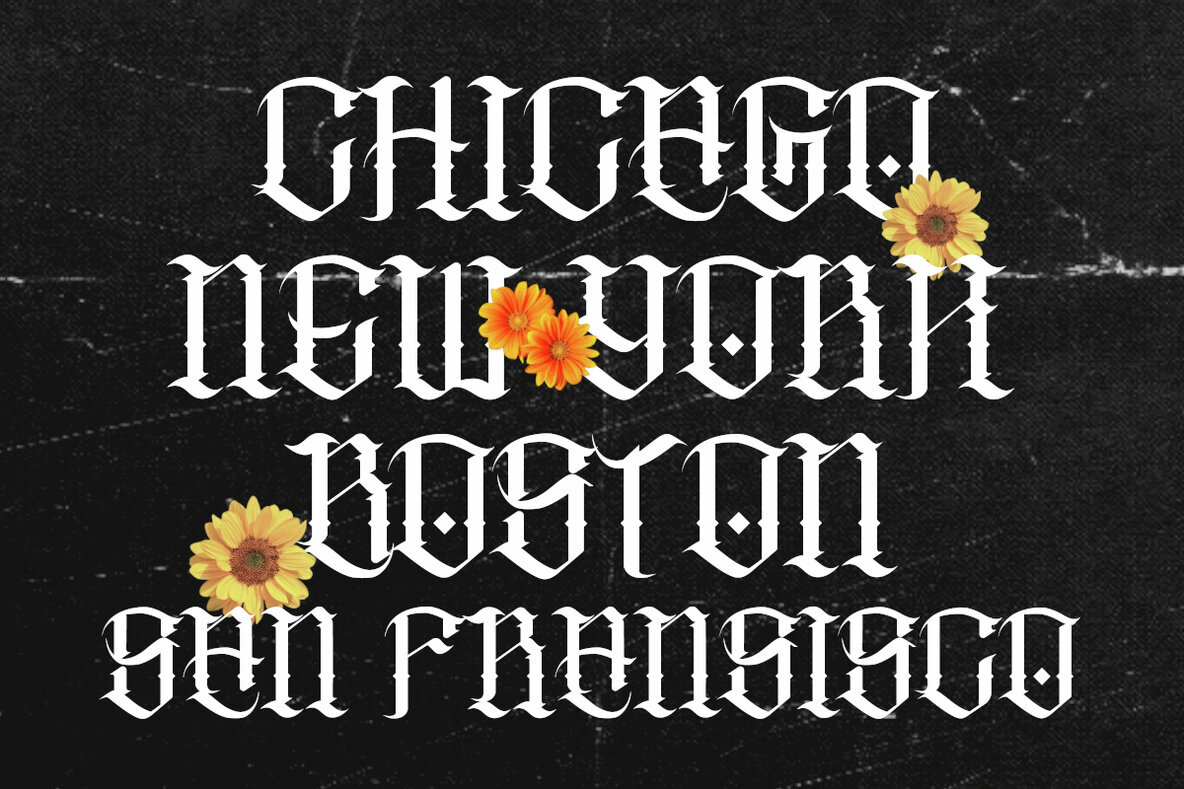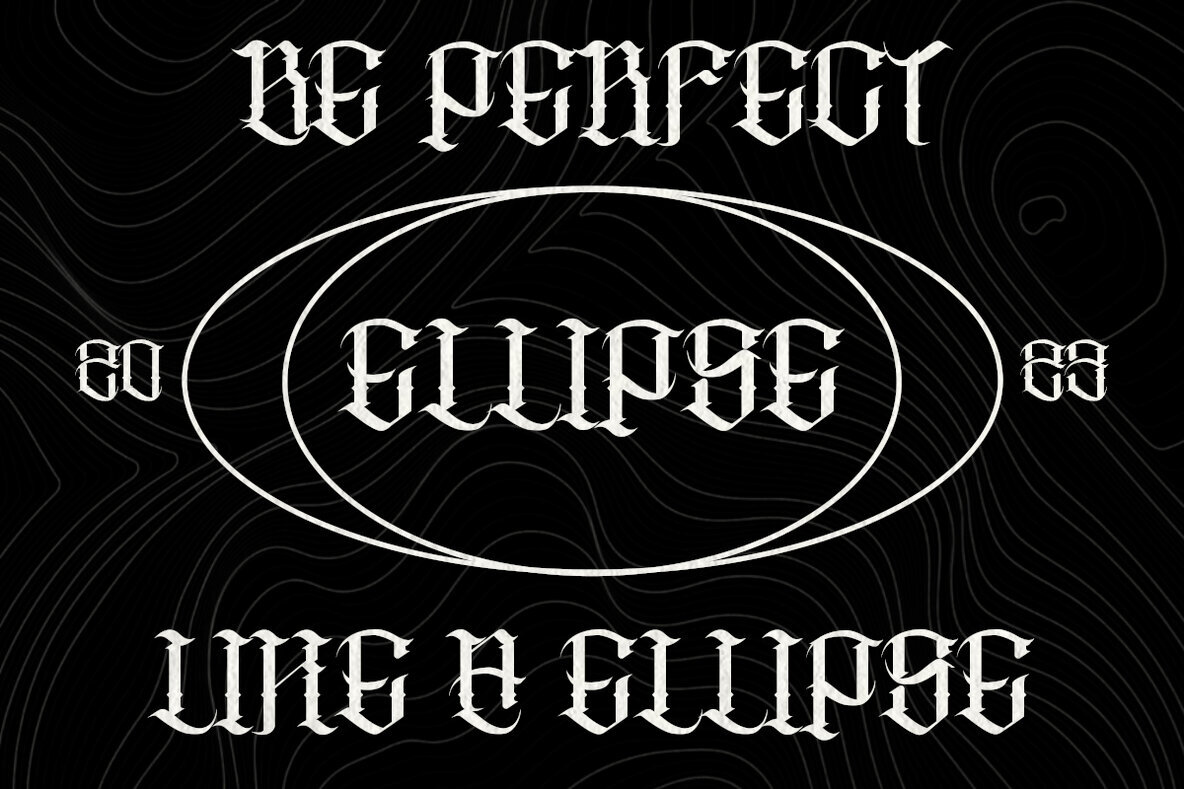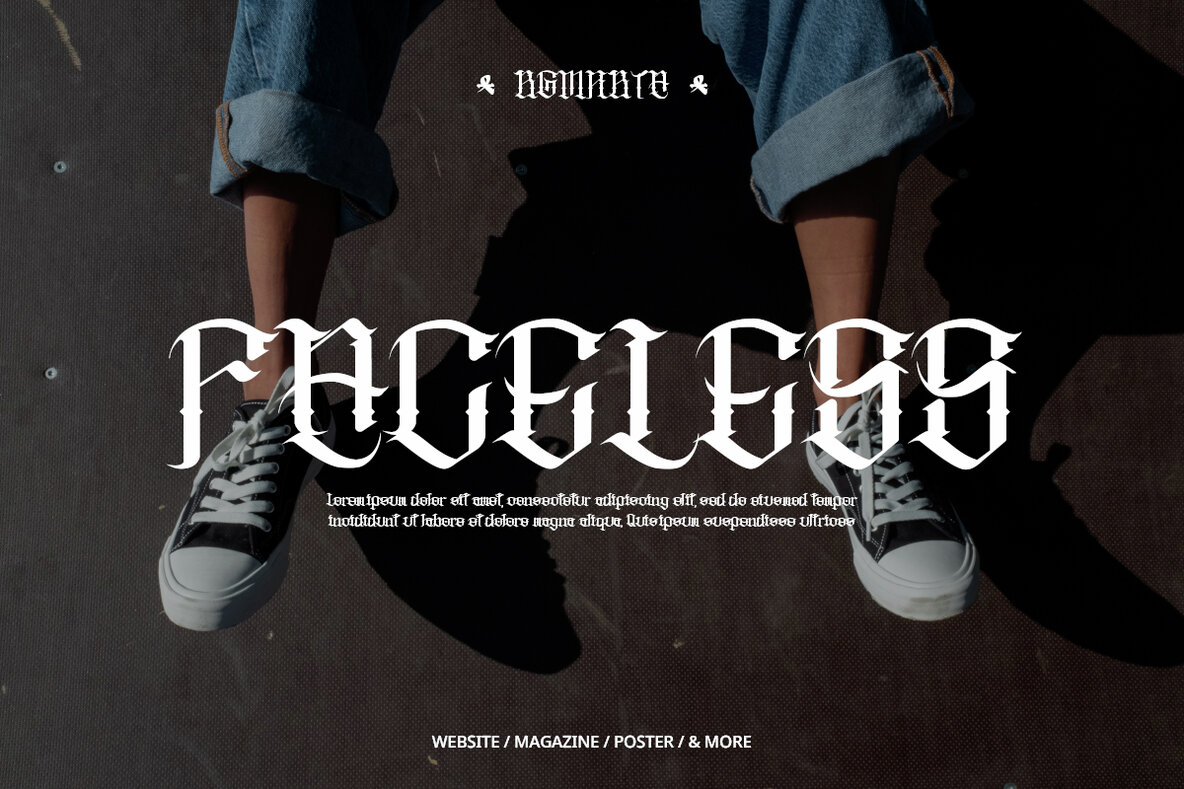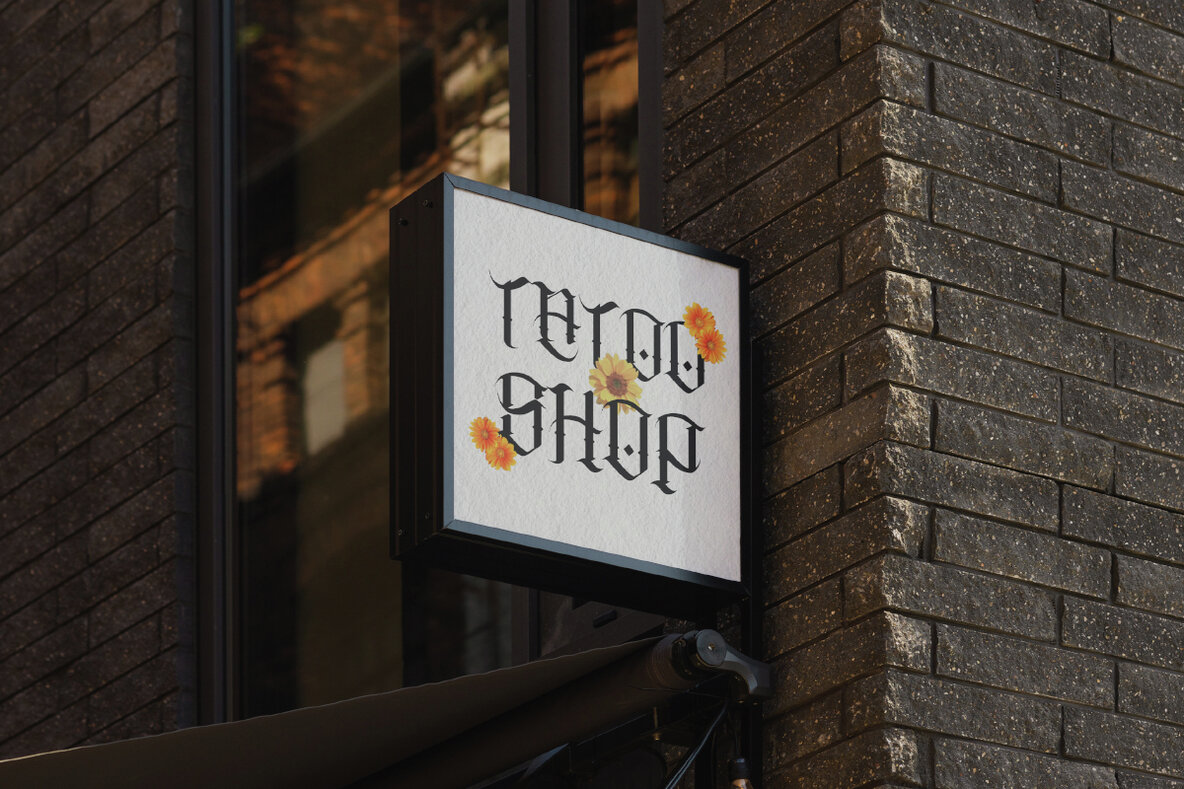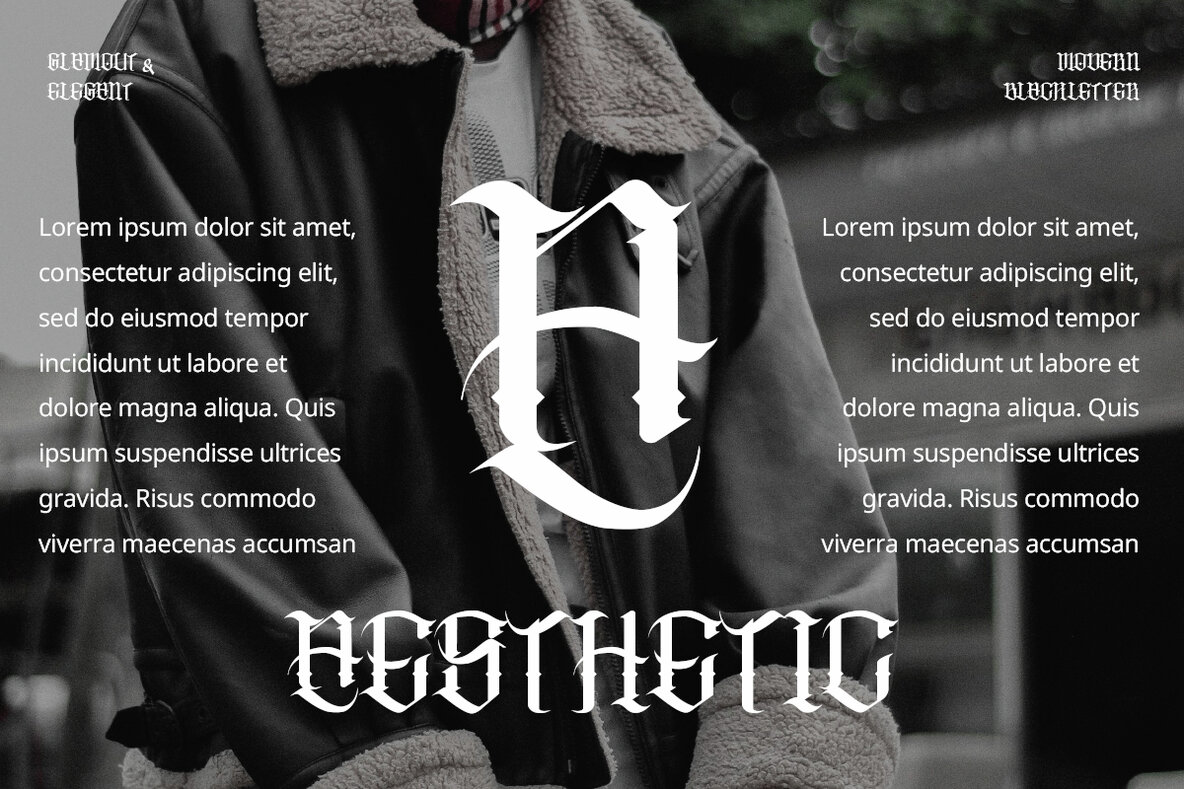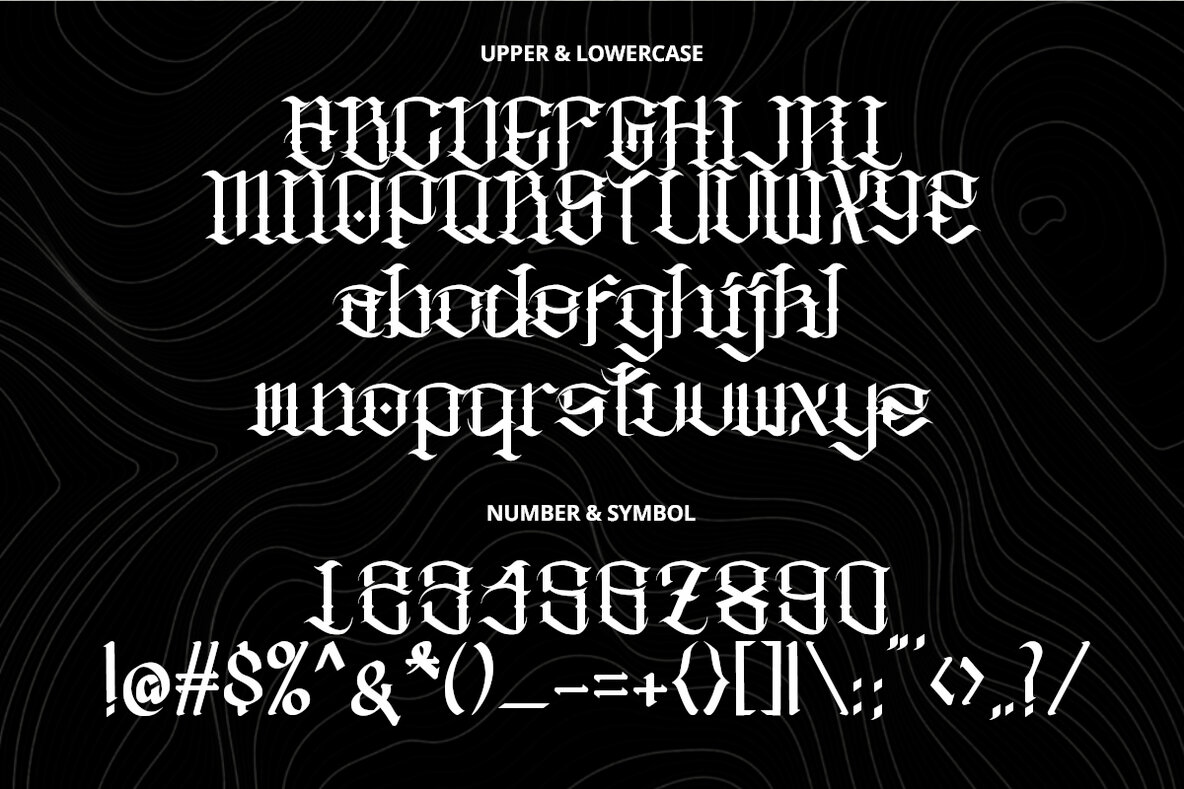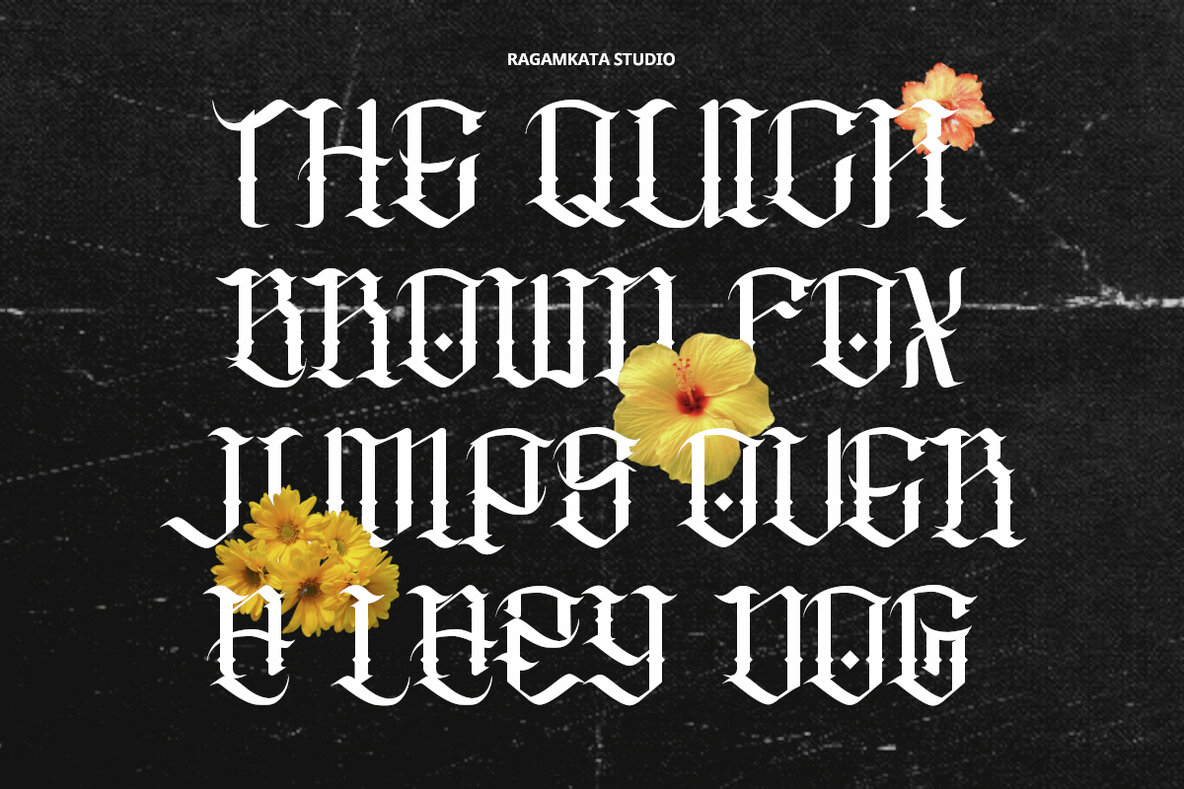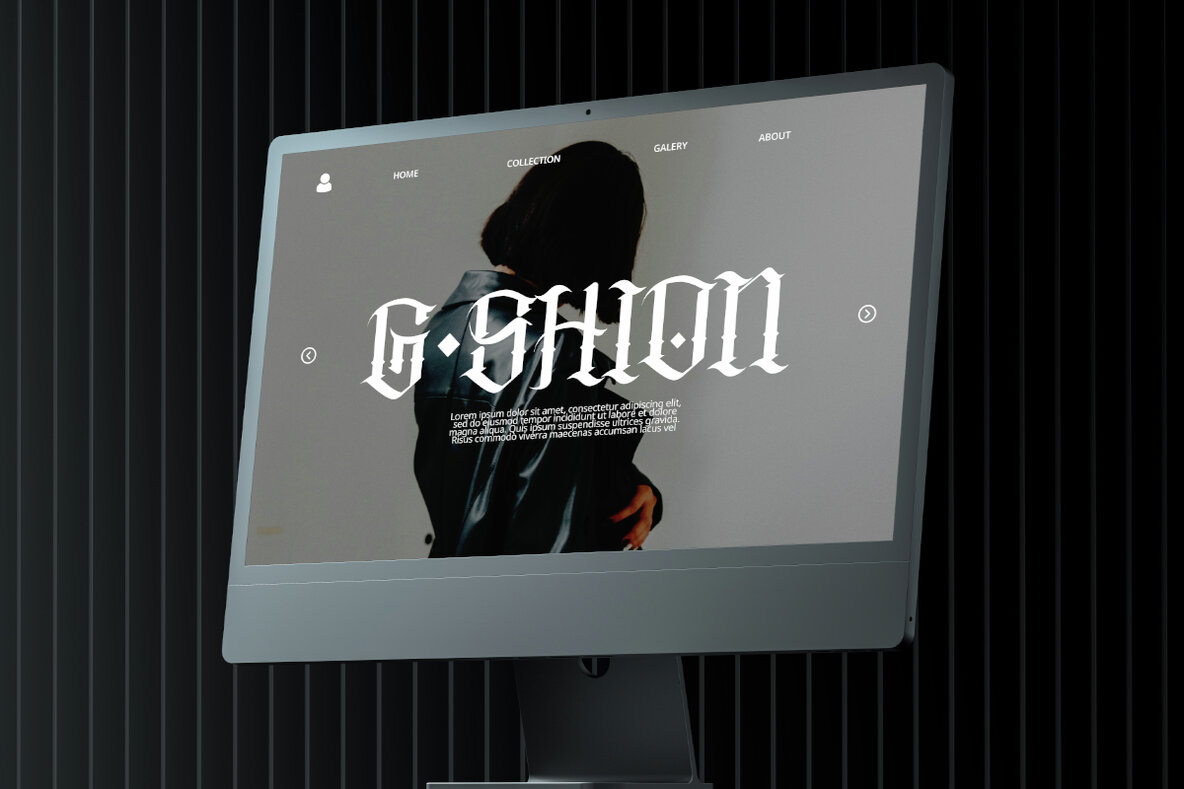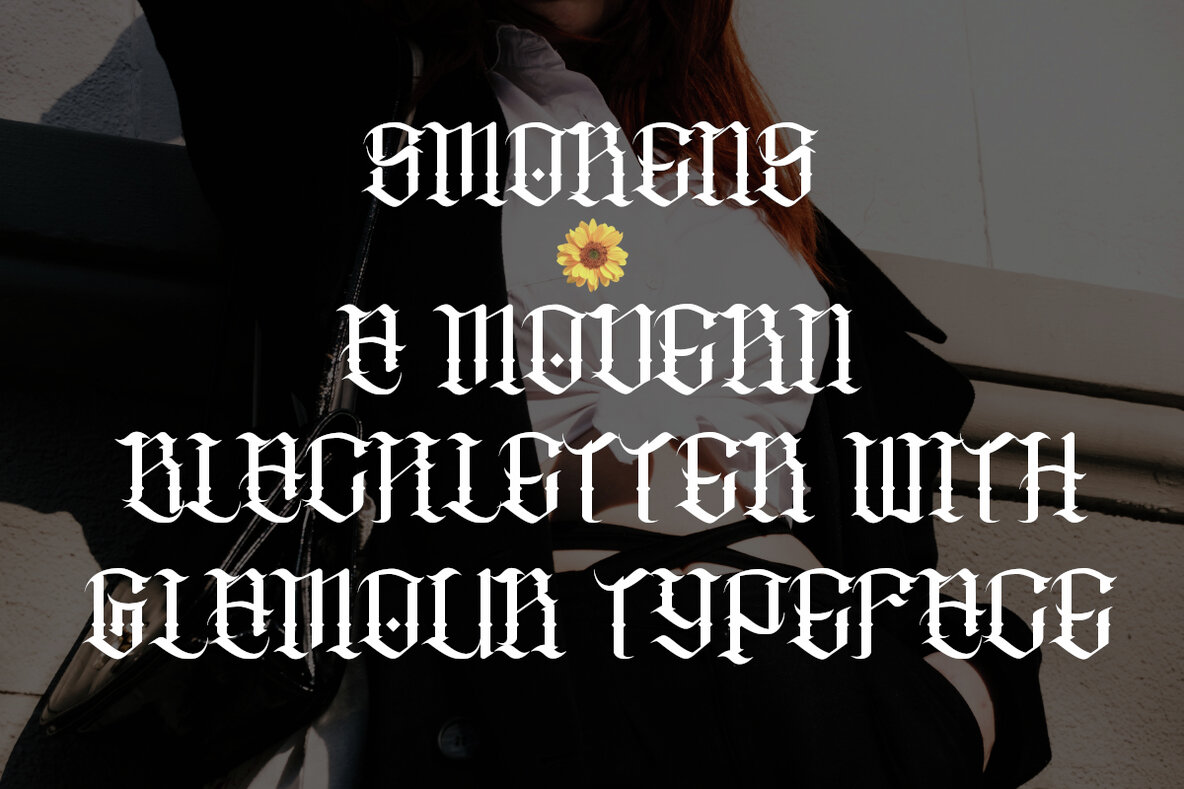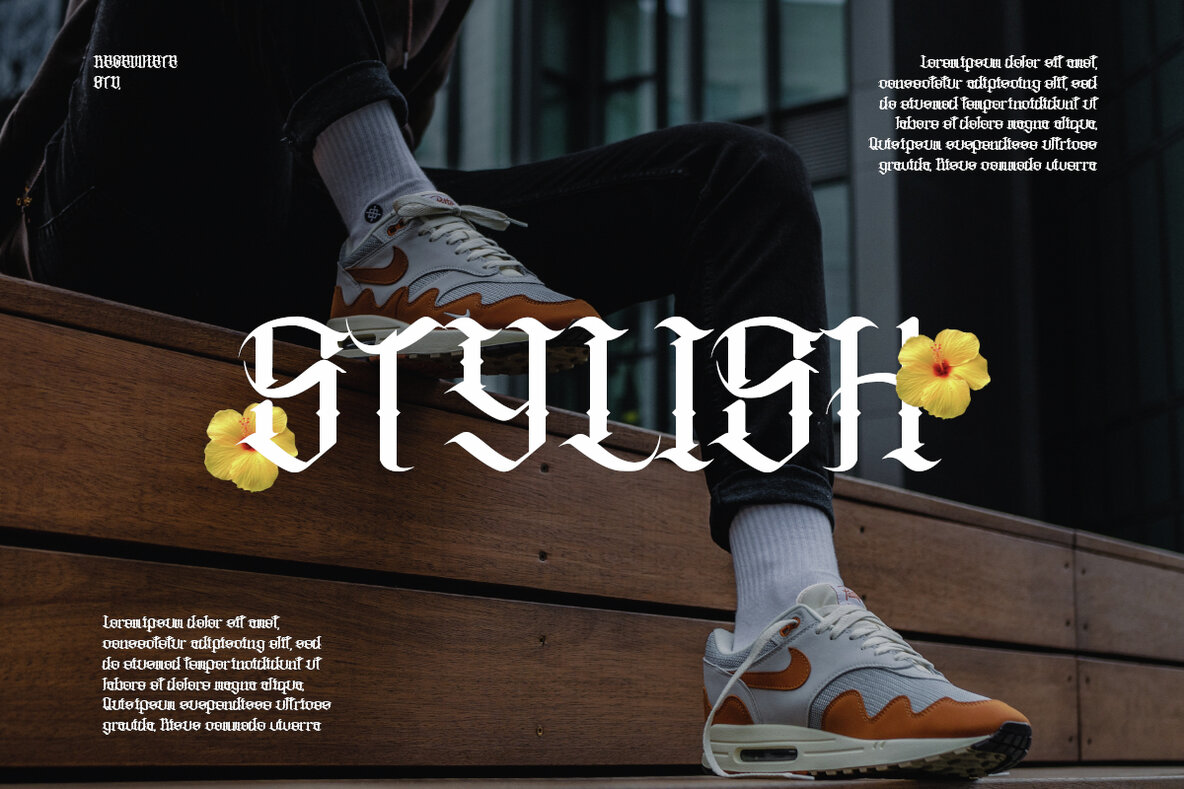
Smorens Font
Smorens Regular
Smorens is a modern blackletter font designed to add a bold and elegant touch to your projects. This unique typeface includes alternative characters, ligatures, and multi-language support to ensure versatility. Whether you're designing headings, flyers, greeting cards, product packaging, book covers, printed quotes, logotypes, apparel designs, or album covers, Smorens offers the sophistication needed to make your work stand out.